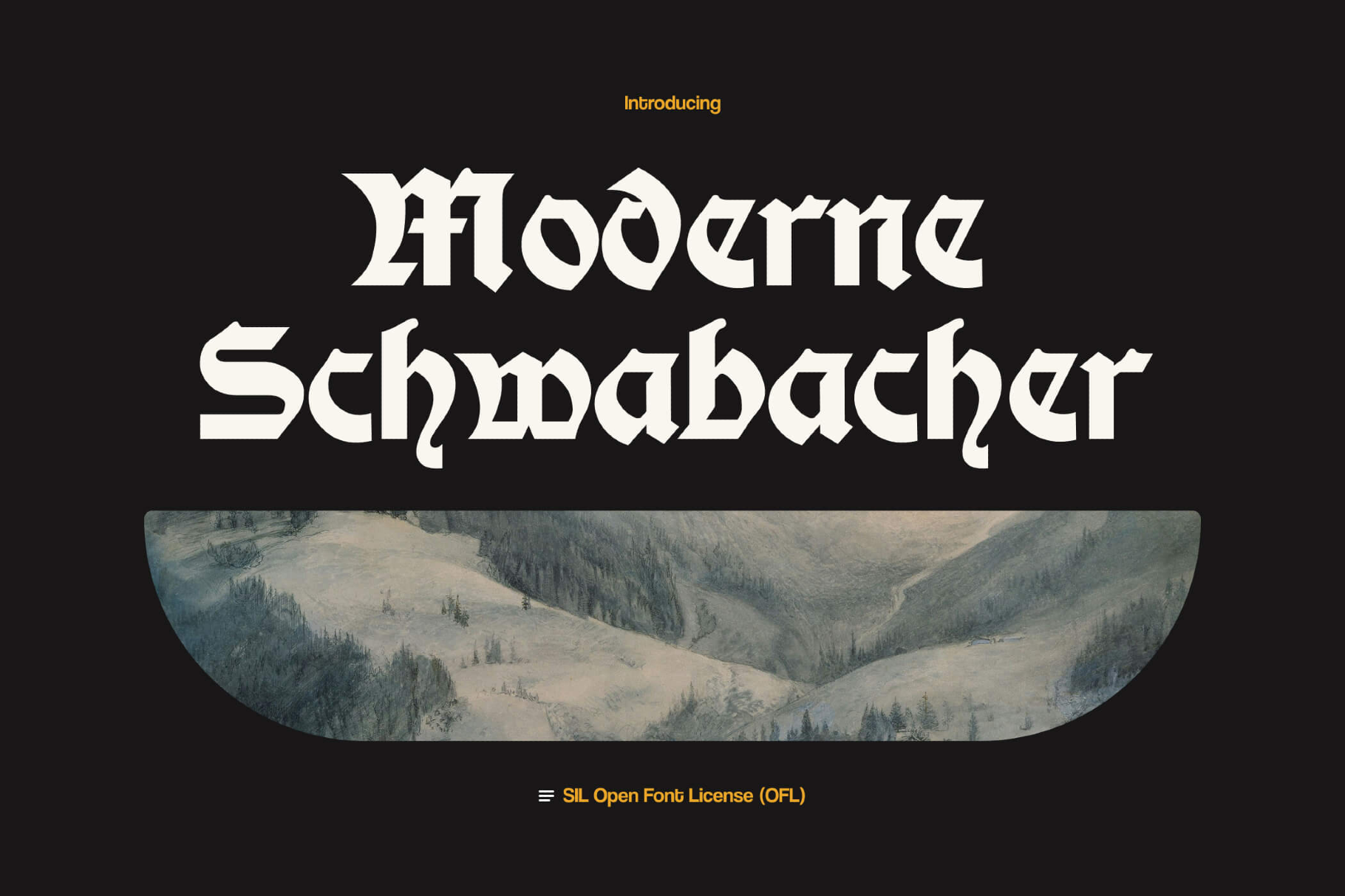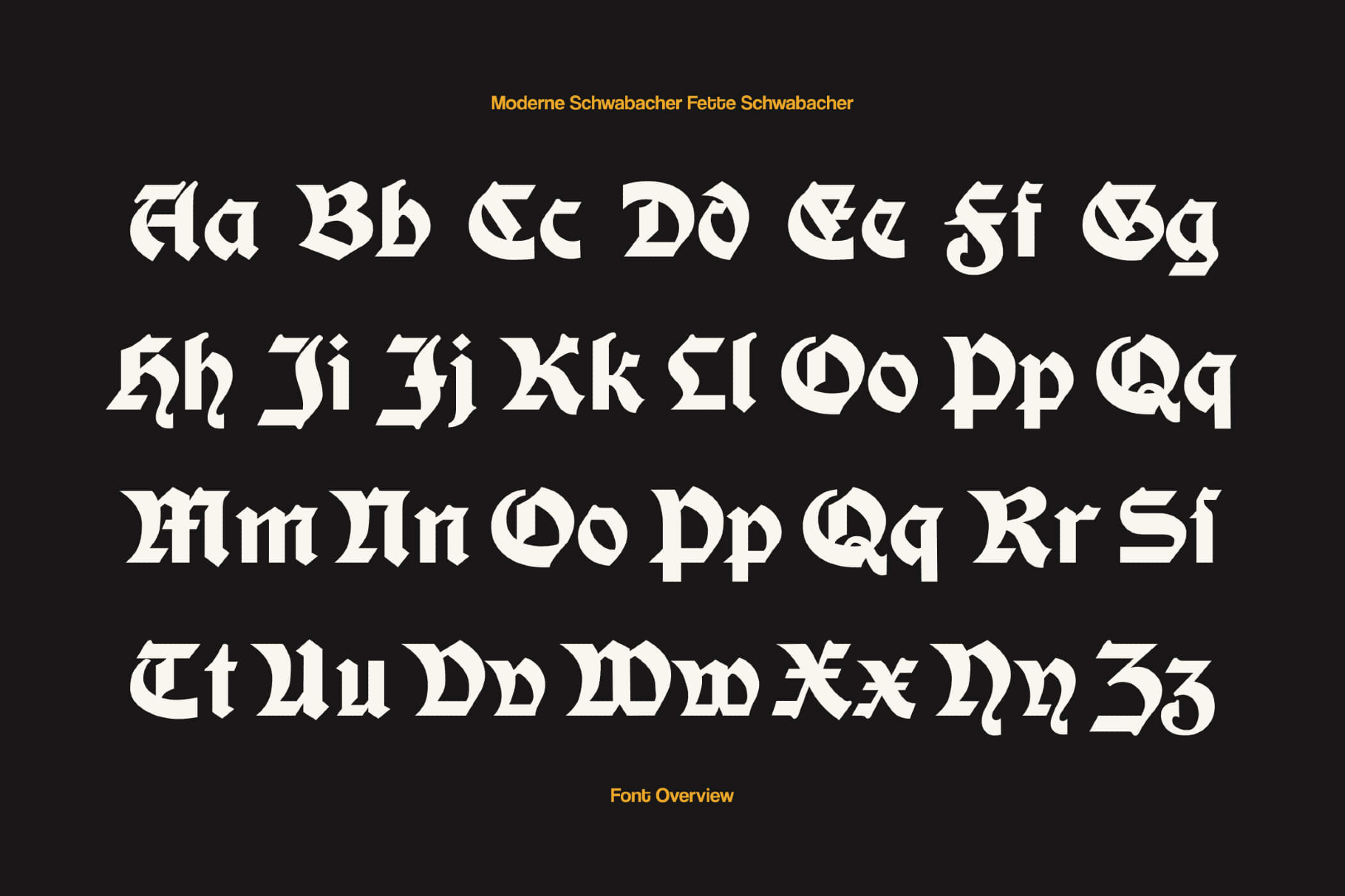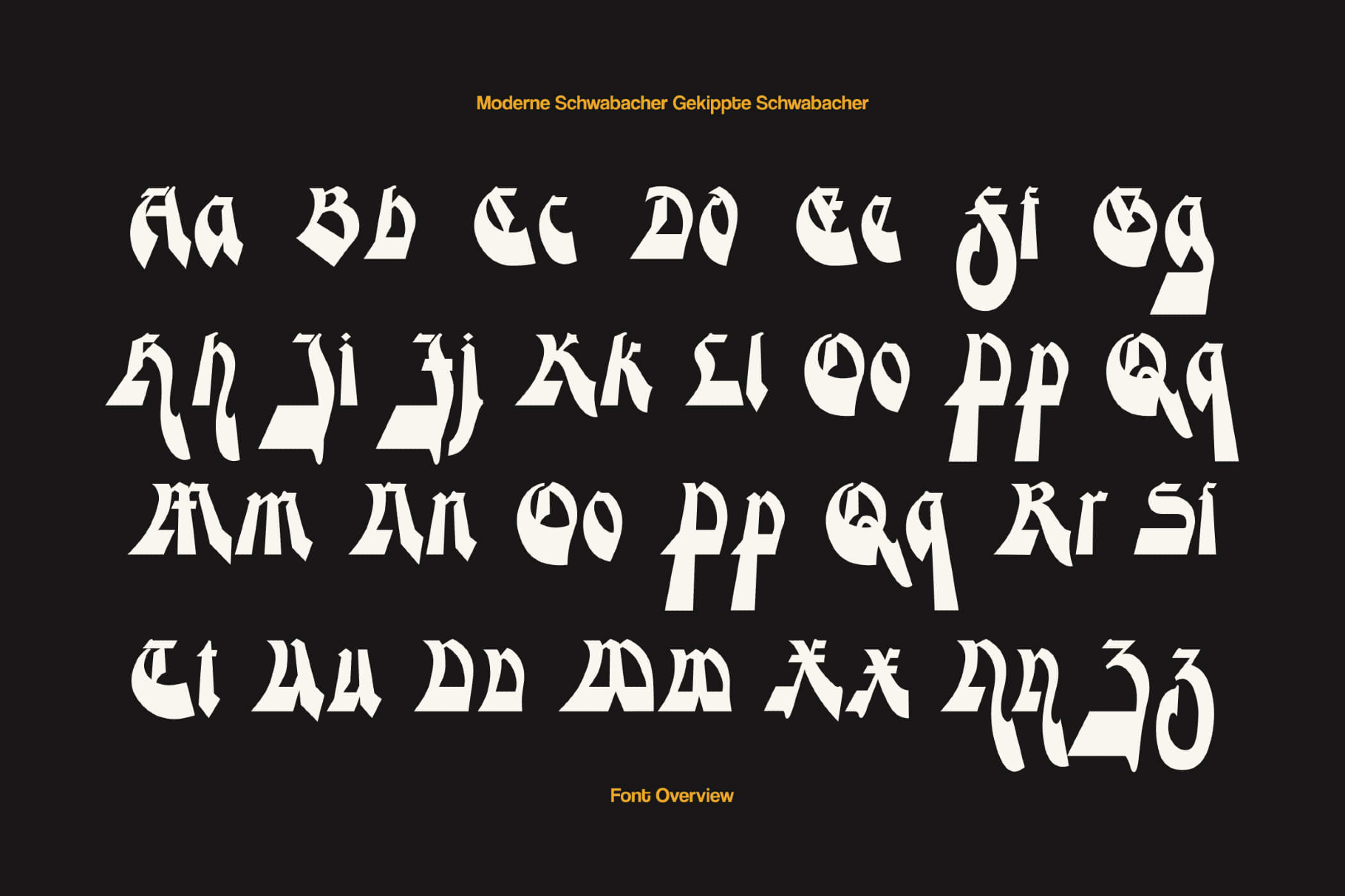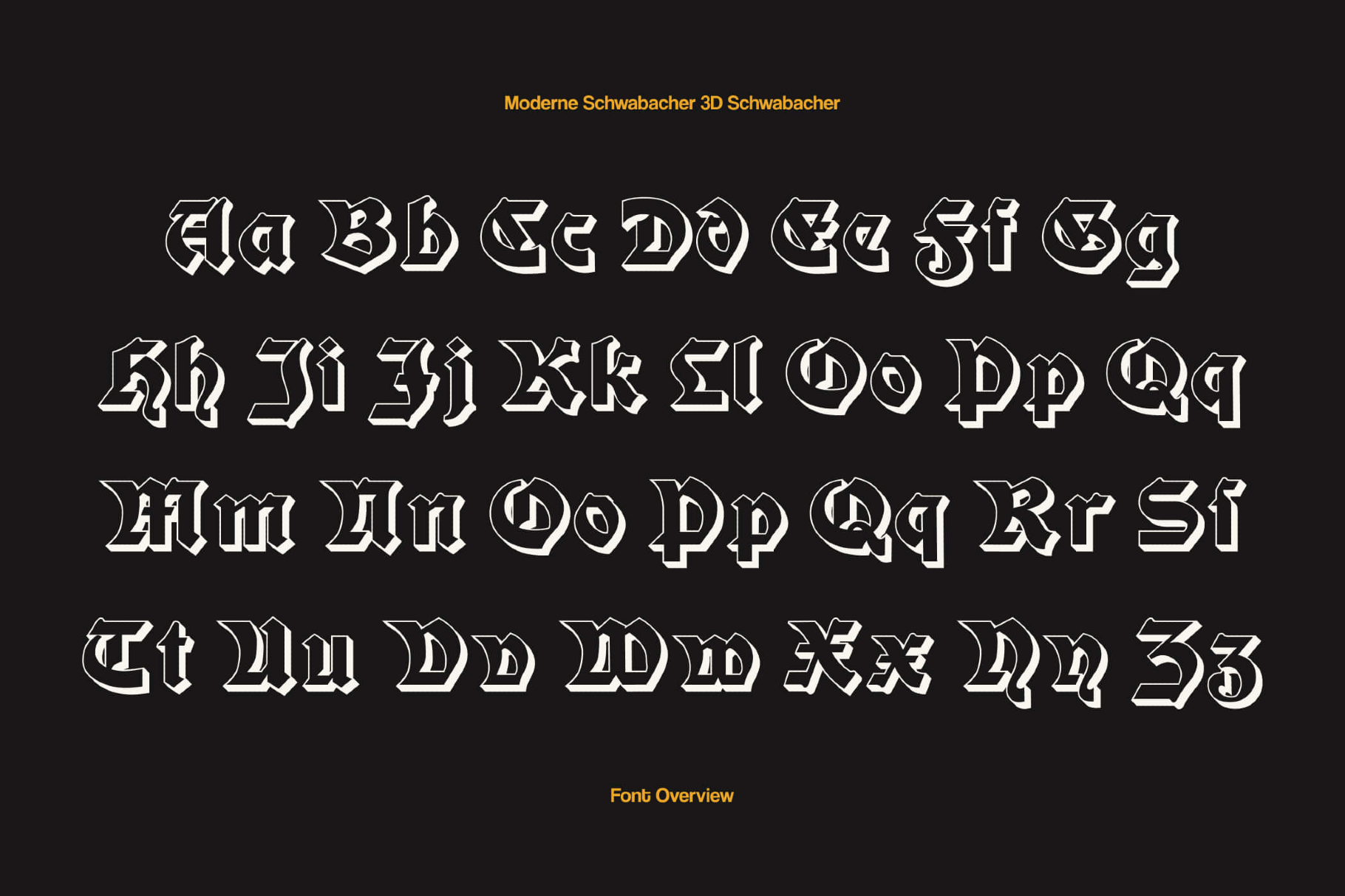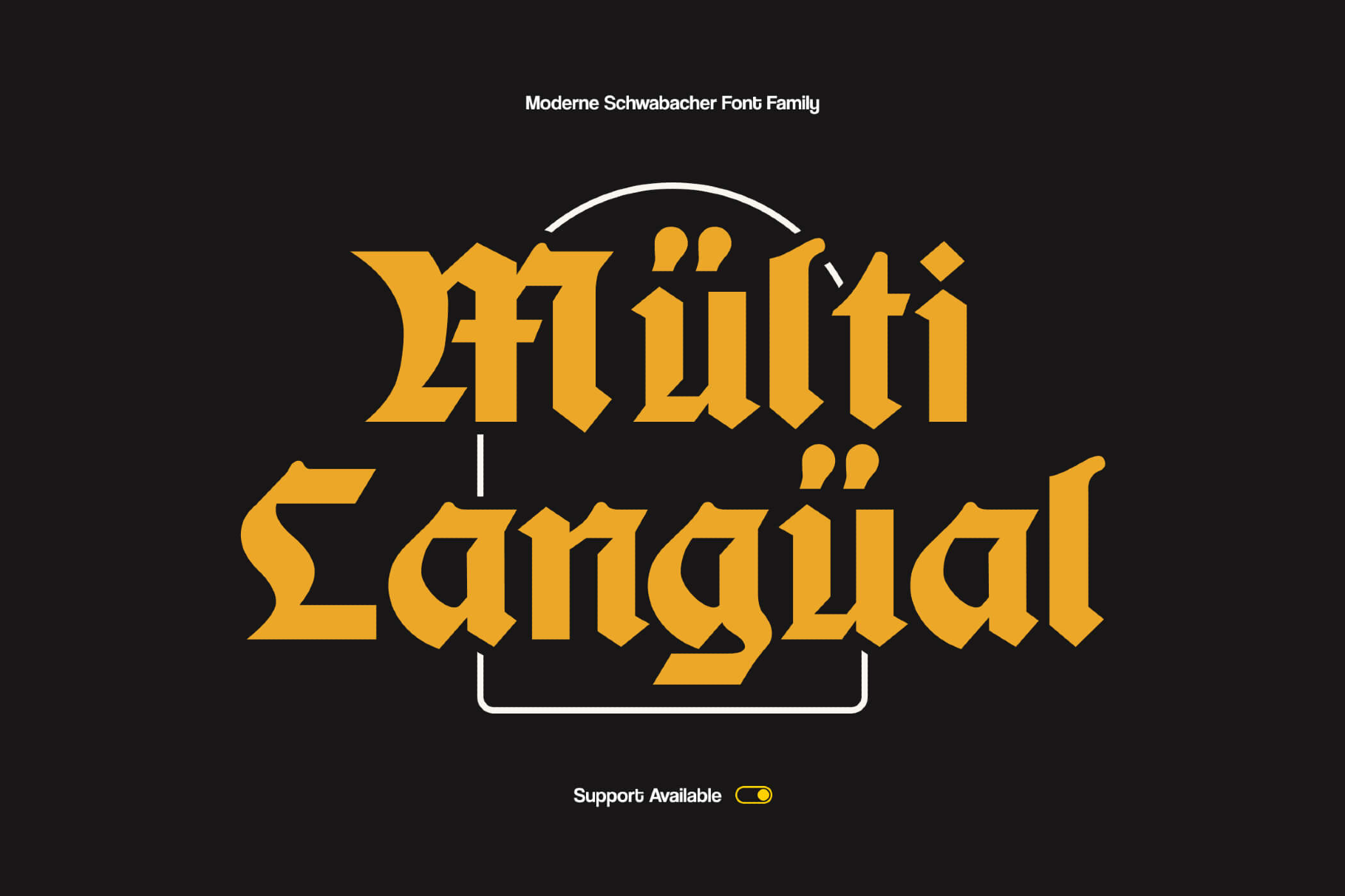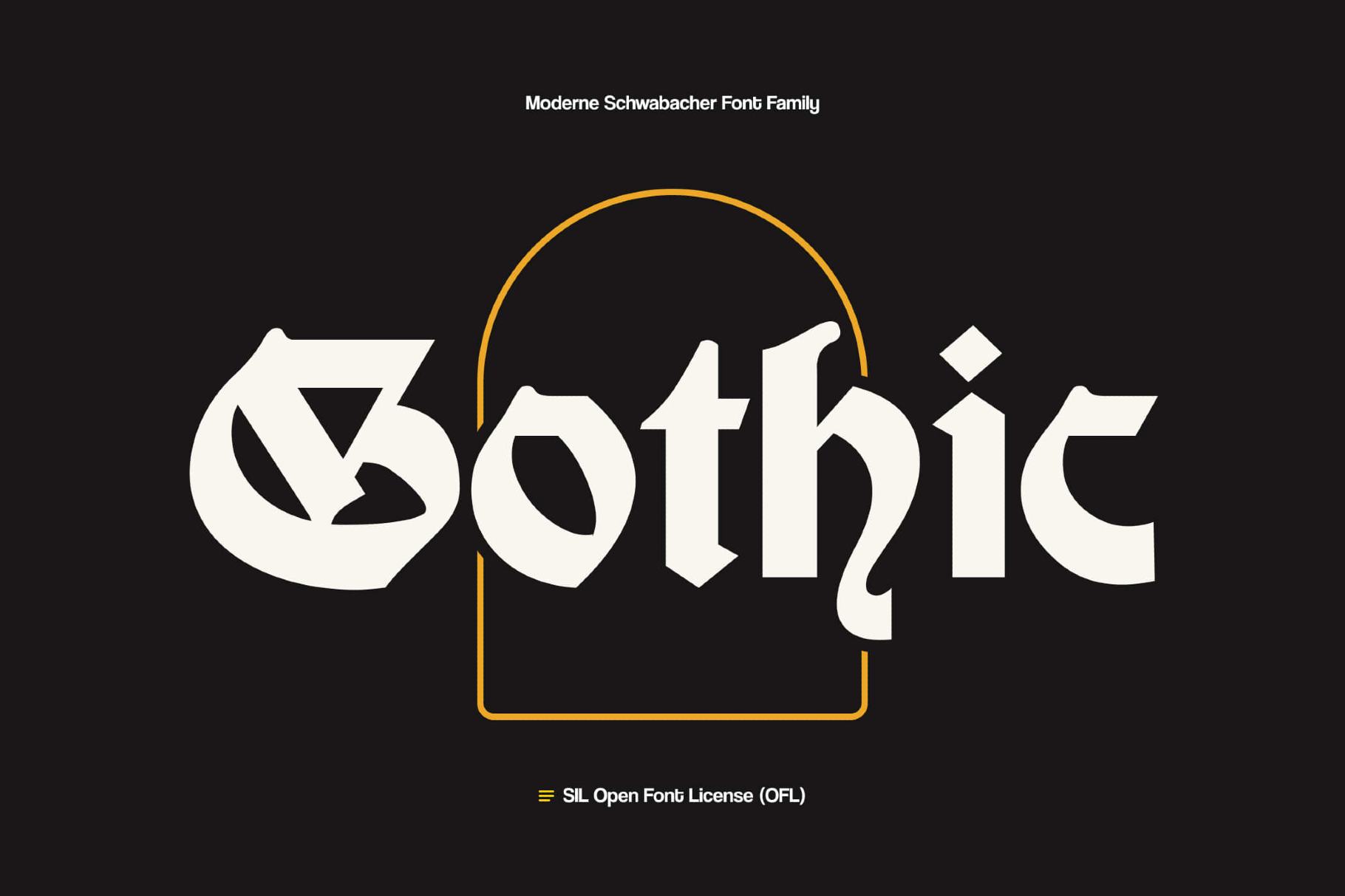
Modern Schwabacher Font Family
3D Schwabacher
Fette Schwabacher
Gekippte Schwabacher
The family draws on classic German blackletter forms, with broad strokes, angular terminals, and gently rounded counters. The capitals carry strong verticals and distinctive entry strokes; the lowercase letters weave a dense, rhythmic texture in lines of text.
Use Modern Schwabacher for beer and spirits labels, football or fan-club identities, music logos and album covers, historic or fantasy book titles, posters for markets and folk festivals, signage for restaurants or bars, and apparel graphics.